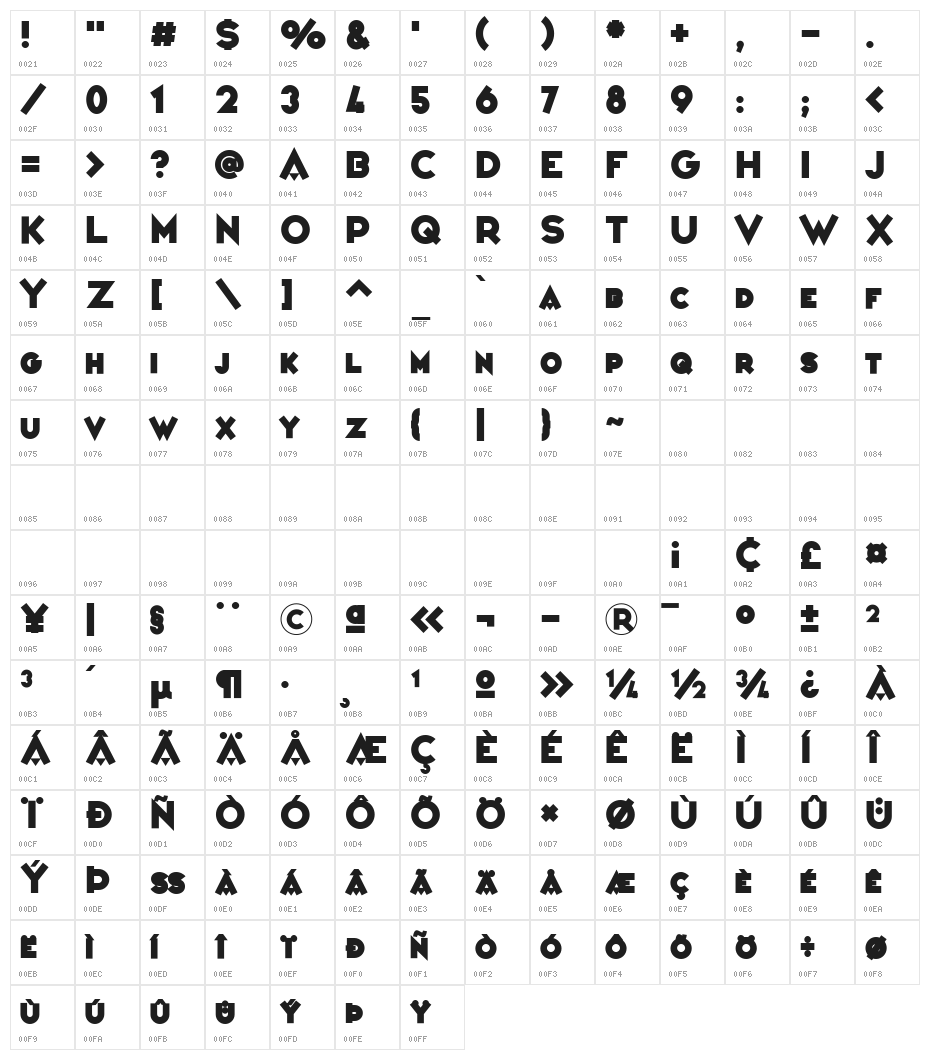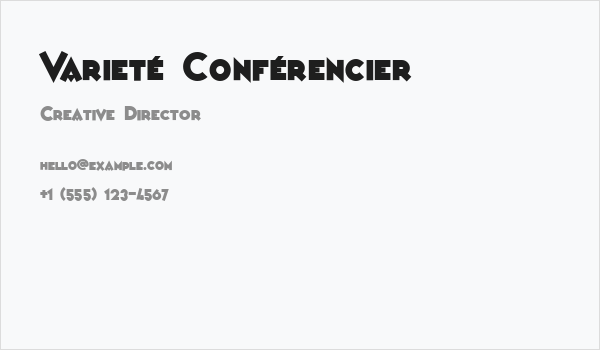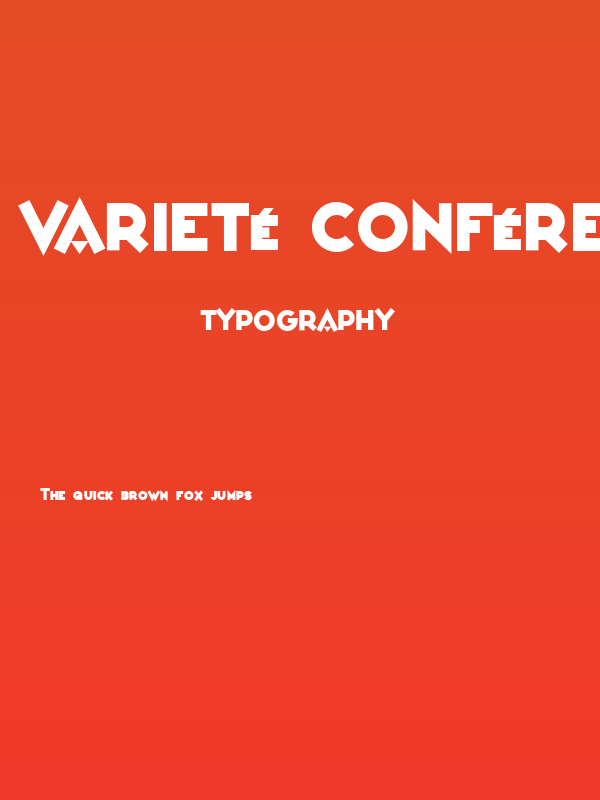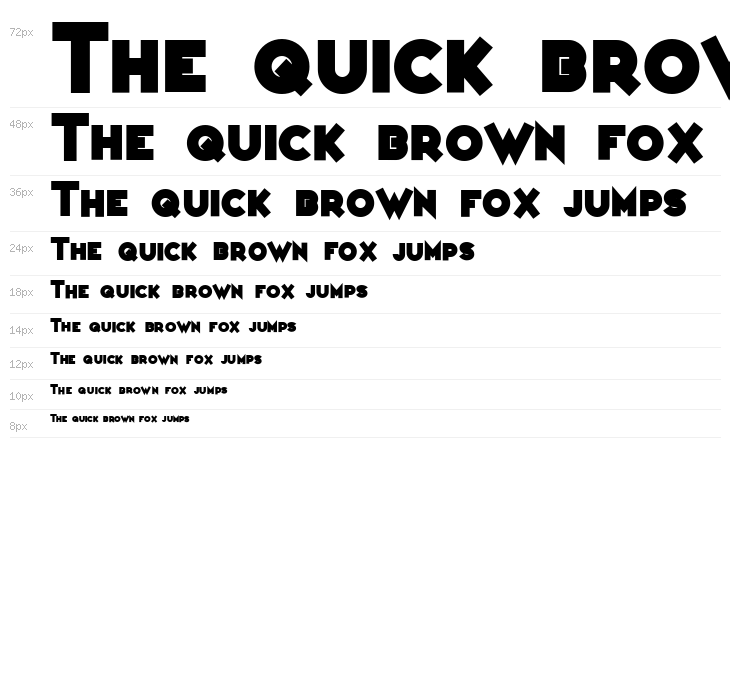
Varieté Conférencier Font
Varieté Conférencier Description
This font features bold, geometric shapes with a strong presence. The characters are crafted with a modern flair, showcasing sharp angles and clean lines. The uppercase letters are particularly striking, with a uniform height and width that create a cohesive and balanced look. The numbers and special characters maintain the same boldness, ensuring consistency across all text elements. This font's design is both eye-catching and versatile, making it suitable for a variety of applications where a strong visual impact is desired.
| Proposed Projects | Ideal for branding, posters, headlines, and any design requiring a bold statement. |